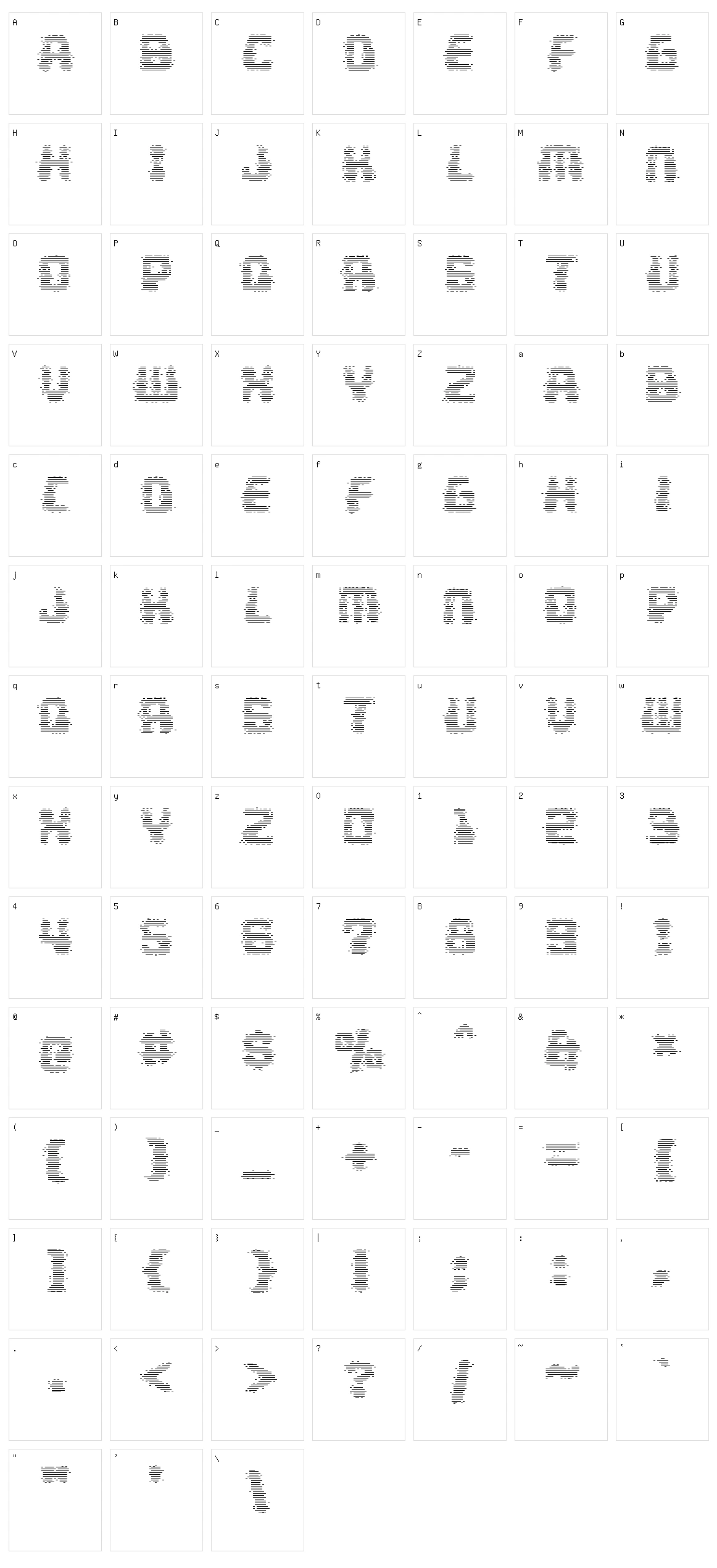
Multivac
MULTIVAC
--------
The forgotten computer sealed into a mountain. It tries to communicate but something is jamming the transmissions...
Don't forget about the different forms (c, i, m, s, w) in the lower case.